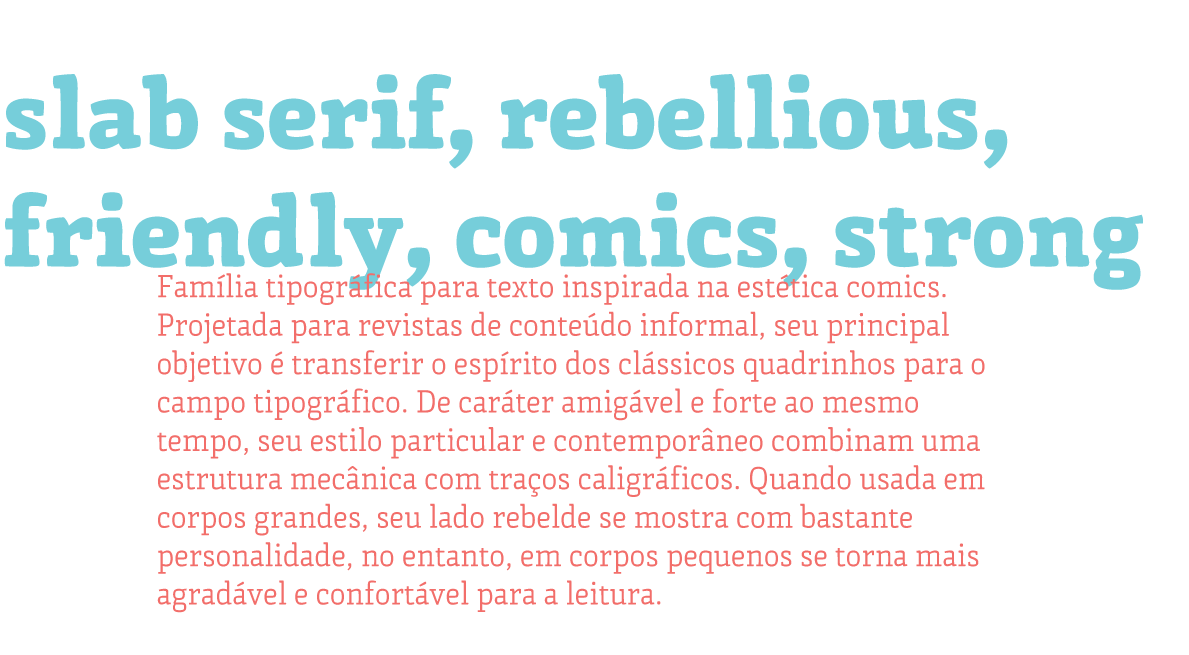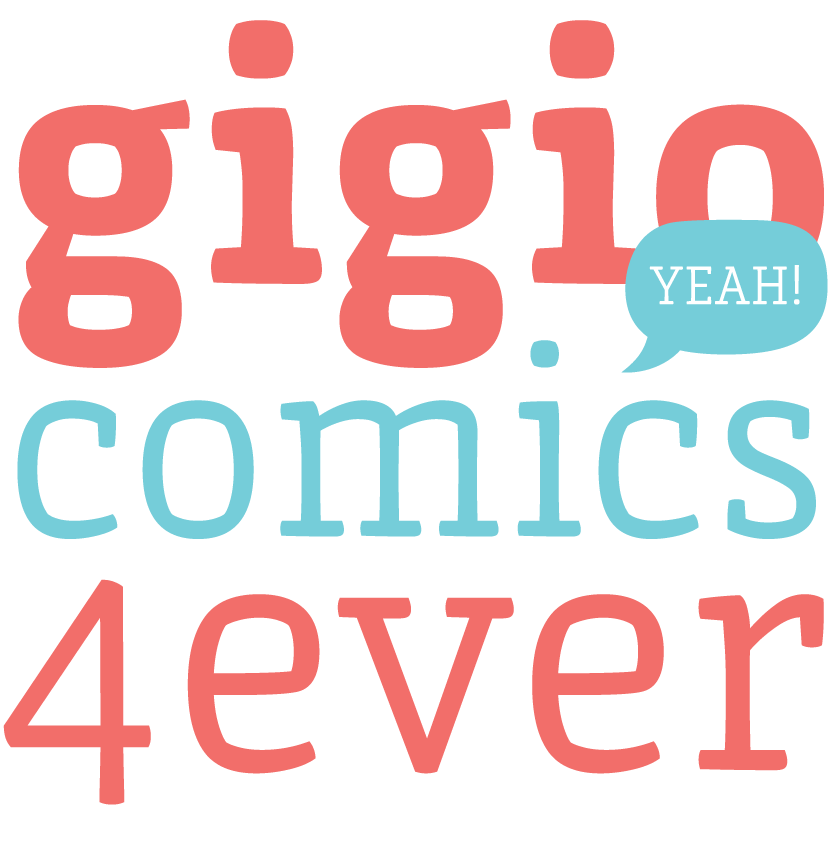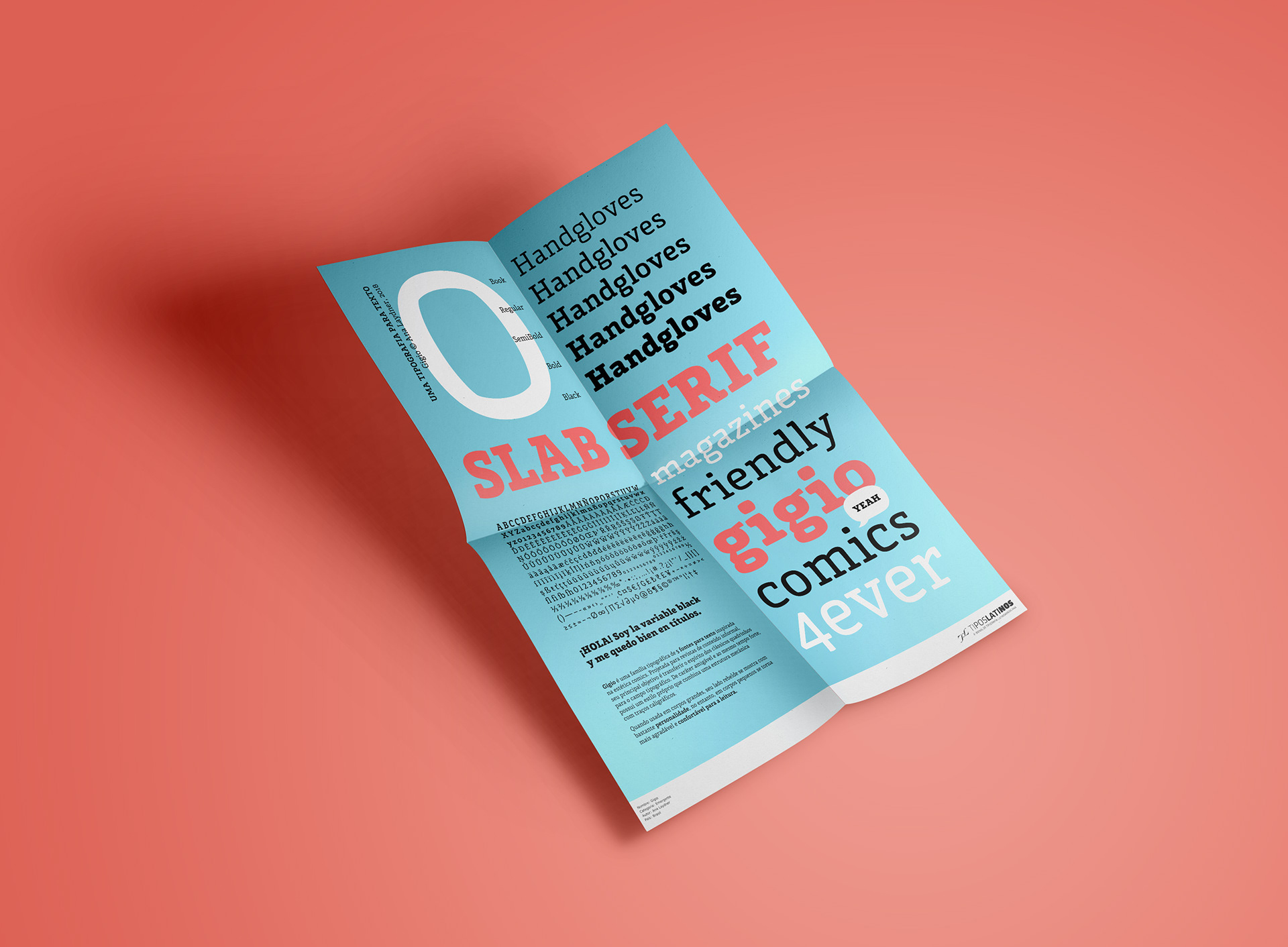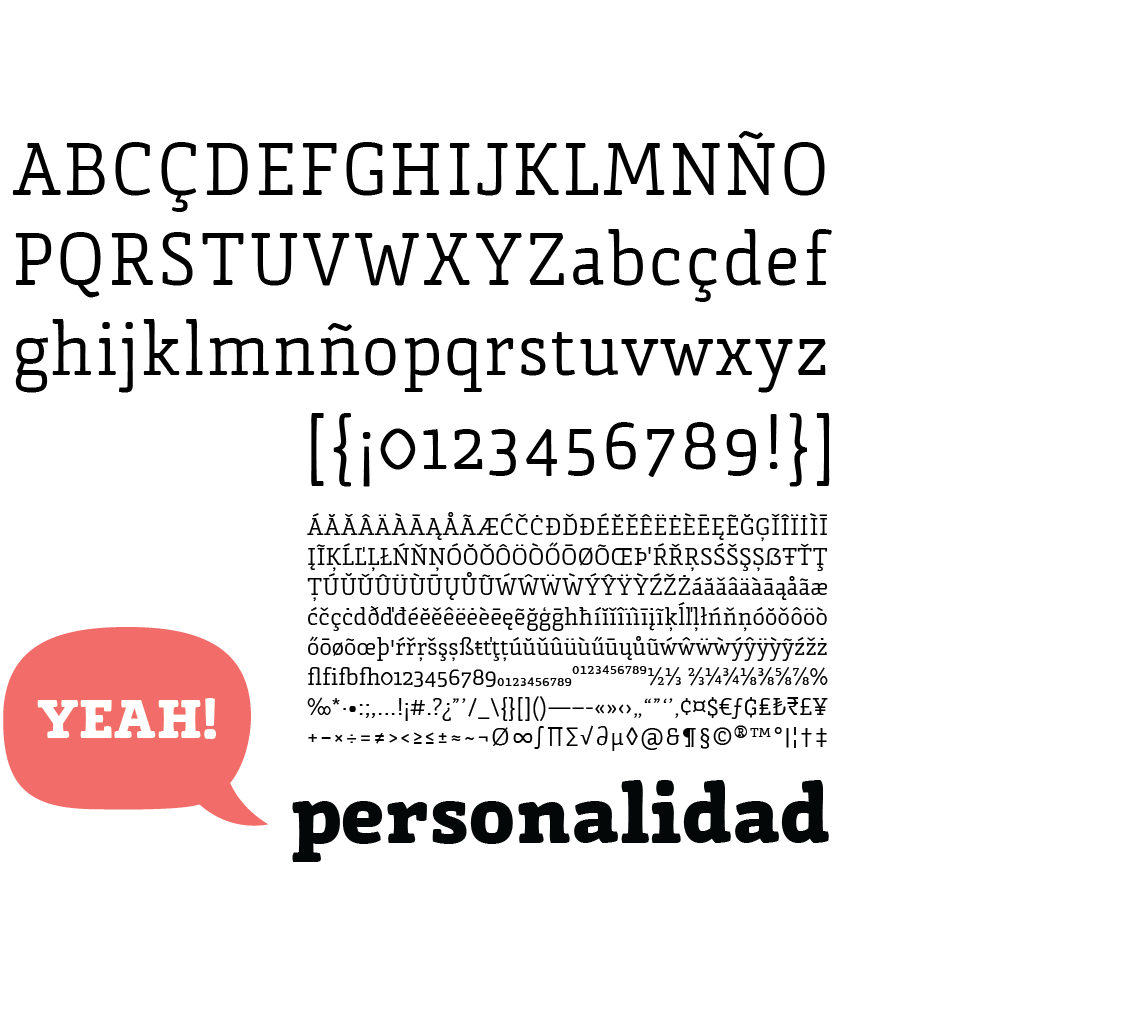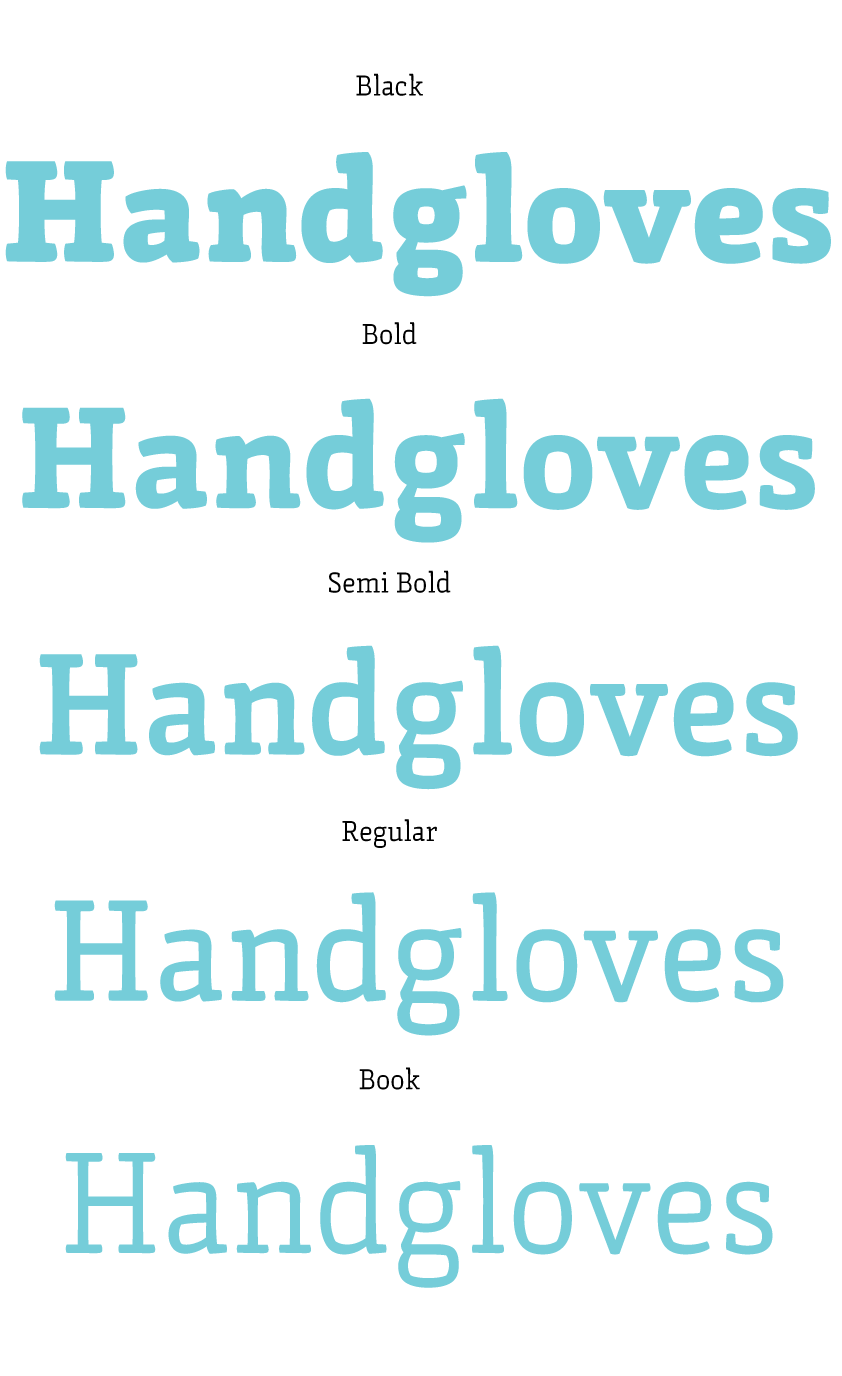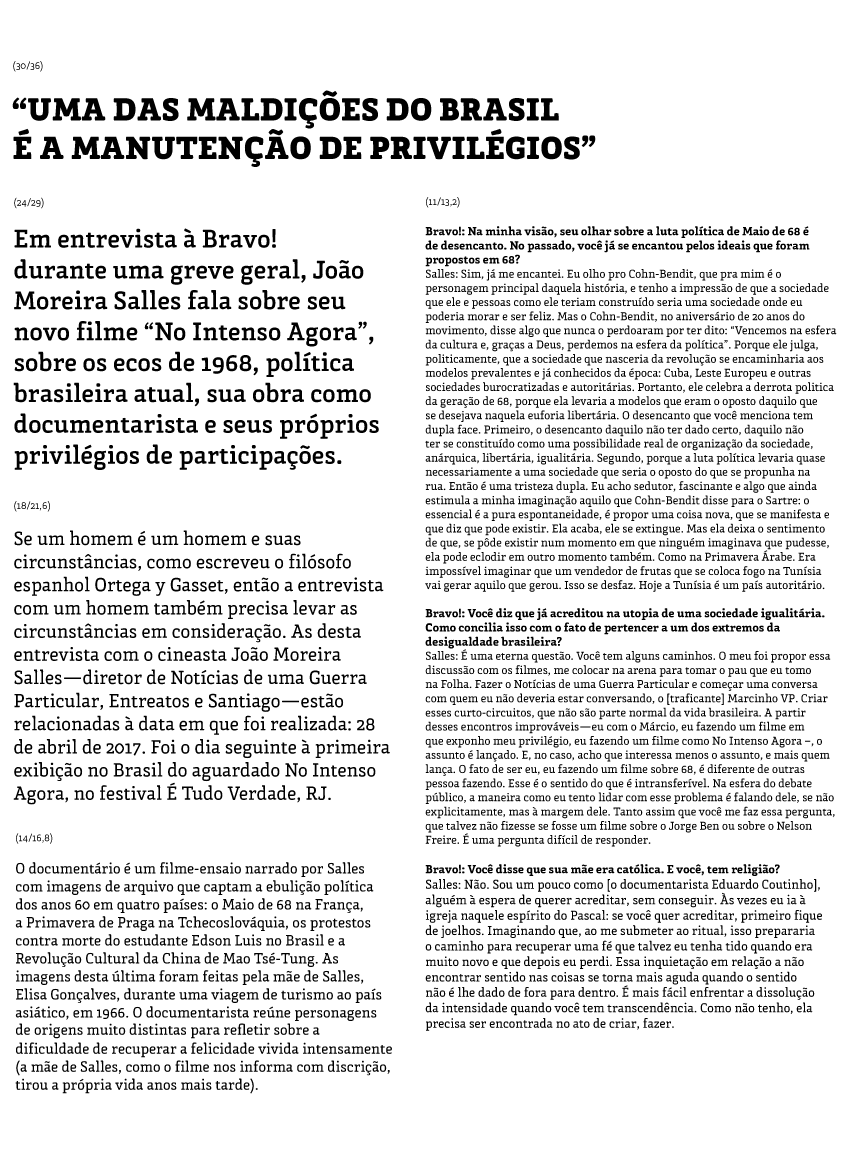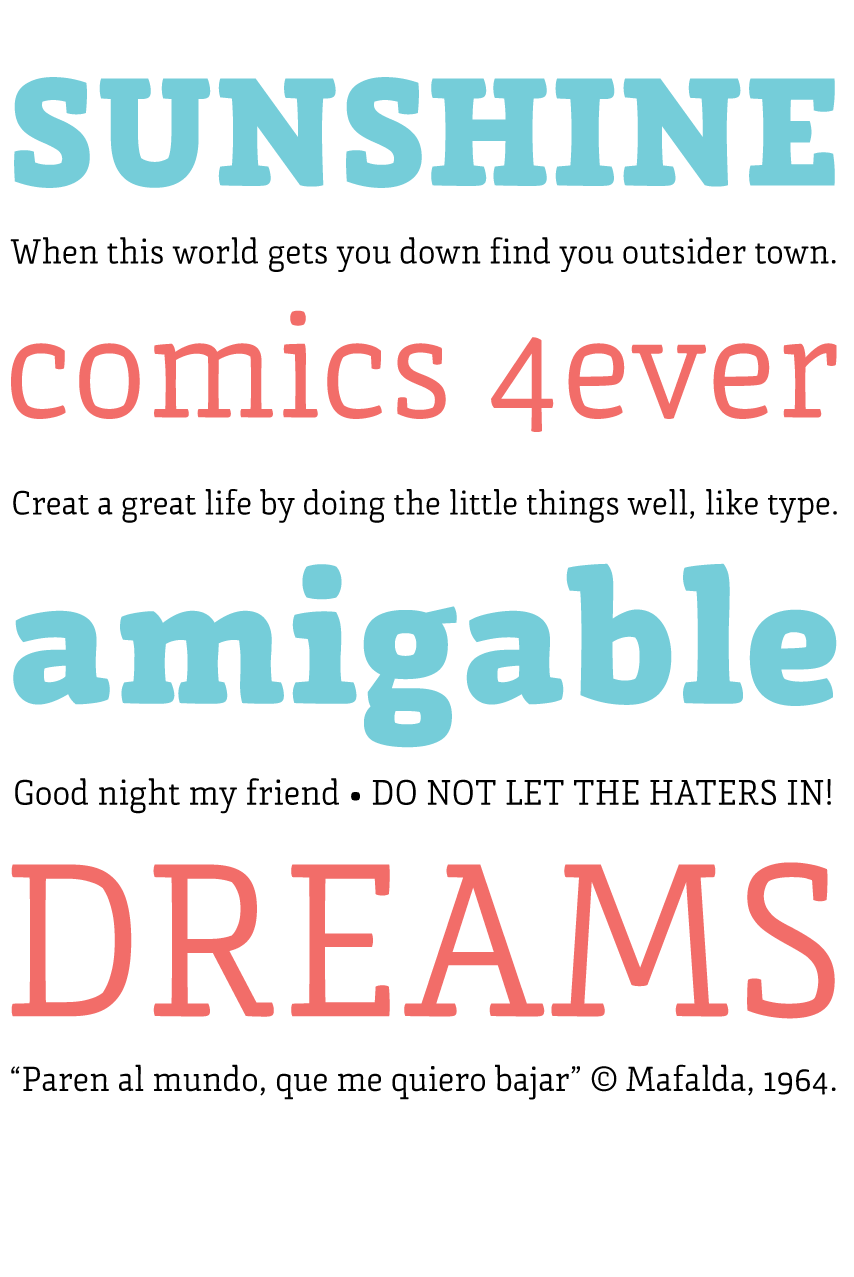
Gigio Typeface
Typeface designed as my final project for receiving a specialization degree in typography at Universidad de Buenos Aires, 2014. The goal was to create a text family with a comic spirit. The result was a slab serif with strong personality, but still highly legible.